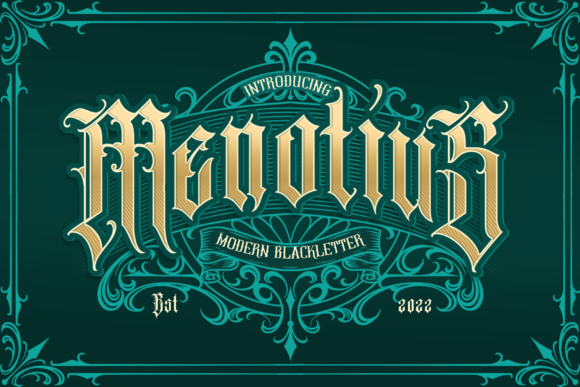
Immerse yourself in the captivating world of Menotius, the blackletter font that exudes charm and sophistication. Inspired by ancient scripts, Menotius boasts intricate details and elegant curves that evoke a sense of history and timeless beauty.
With its bold strokes and sweeping flourishes, Menotius commands attention and adds a touch of intrigue to your designs. Its vintage appeal makes it perfect for projects seeking a classic and timeless aesthetic, while its intricate details add a touch of modernity and visual interest.
Whether you're crafting logos, invitations, posters, or eye-catching social media graphics, Menotius is the perfect choice for making a lasting impression. Its versatility extends from traditional print media to digital platforms, ensuring that your designs shine in any medium.
Unlock your creativity and transform your projects into works of art with Menotius. This stunning blackletter font is the key to unlocking a world of possibilities, where your imagination takes center stage. Embrace the beauty and power of Menotius and elevate your designs to new heights.